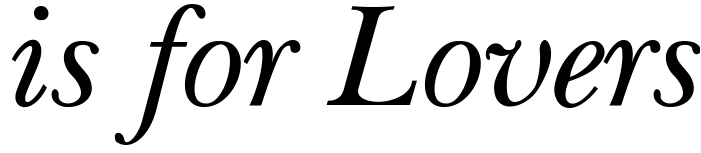
Virginia is for Lovers Font
CampaignVirginia is for Lovers is a slogan and tourism marketing campaign used by the Virginia Tourism Corporation to promote travel to the state of Virginia in the United States. The slogan was created in 1969 by the Martin Agency and is considered one of the top 50 most iconic advertising campaigns.
ITC New Baskerville is most likely the font used for the slogan text, with "Virginia" set in Regular and "is for lovers" placed in Italics. John Baskerville created the transitional serif typeface Baskerville in 1757. You can view and download the font here.